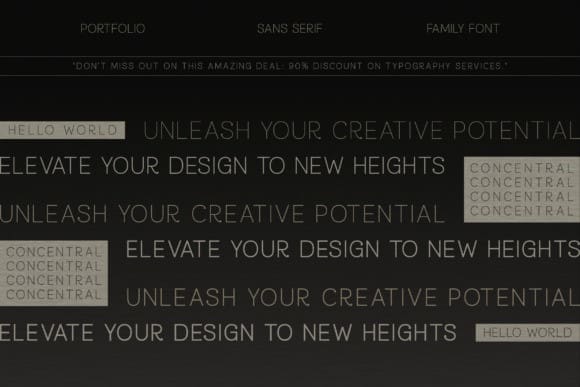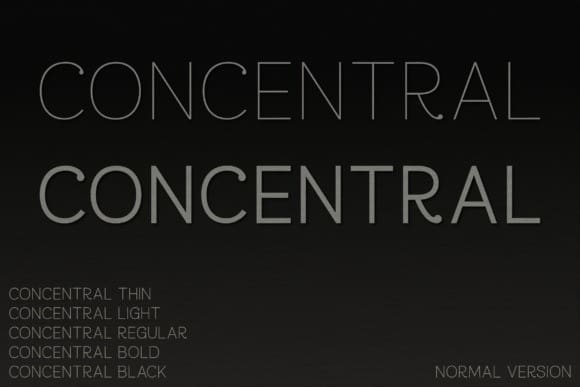
Concentral Font Family
Concentral Font Family, a sleek fusion of understated beauty and minimalist aesthetics. Represented in five unique weights, this sans serif ensemble intertwines contemporary style with opulent elements. Painstakingly crafted to perfection, it readily amplifies the charm of any endeavor, from magazines to logos, or even film posters. Experience the sublime equilibrium of class and simplicity inherent in this font family, empowering your designs to radiate enduring allure. Harness the potential of the Concentral Font today and watch your designs transcend beyond the ordinary.